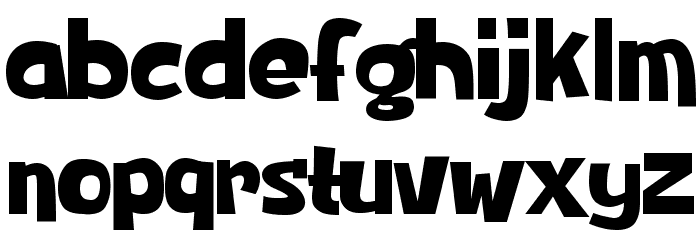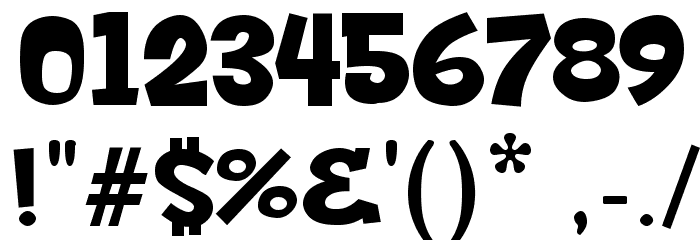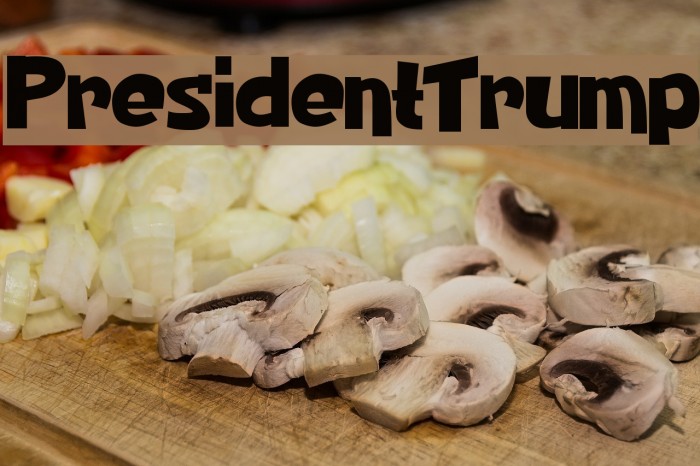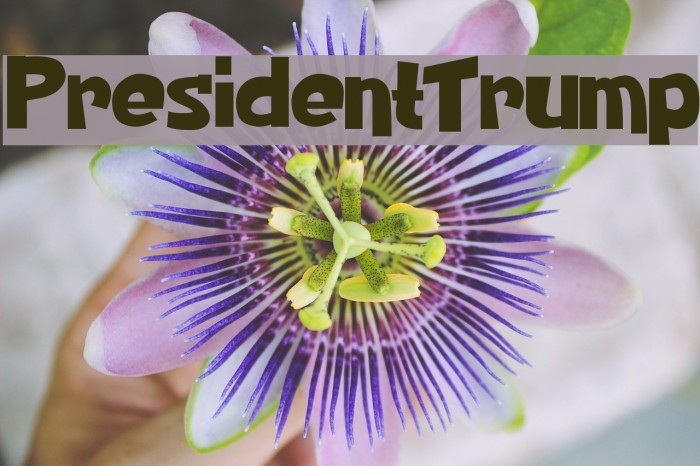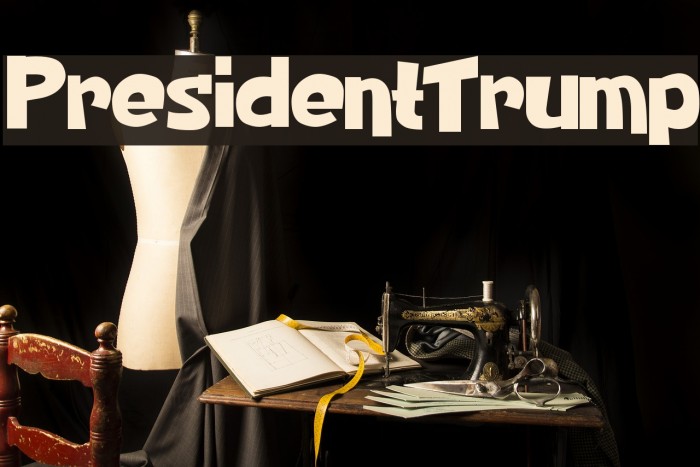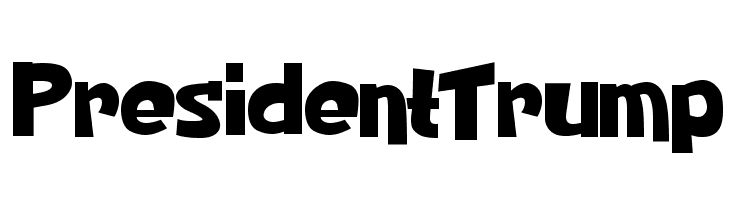
PresidentTrump Font
This font features a bold and playful design with thick, rounded strokes that give it a friendly and approachable appearance. The characters are slightly condensed, adding a sense of compactness while maintaining readability. The uppercase letters are robust and commanding, while the lowercase letters retain a whimsical charm. The numerals are consistent with the overall style, ensuring uniformity across different uses. Special characters are creatively designed, adding to the font's unique personality. This font is ideal for projects that require a fun and engaging aesthetic.
A bold, playful font with rounded strokes and a friendly appearance.
- Overall Style: Playful